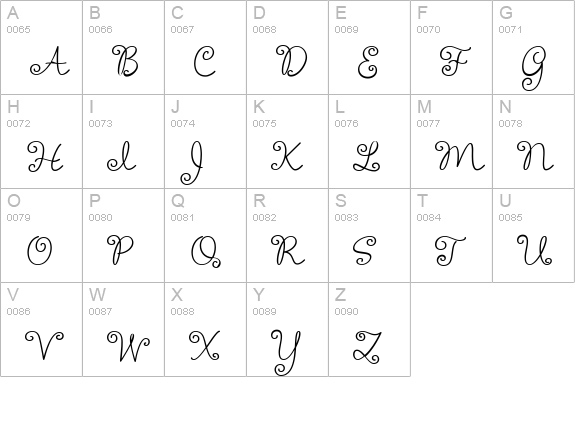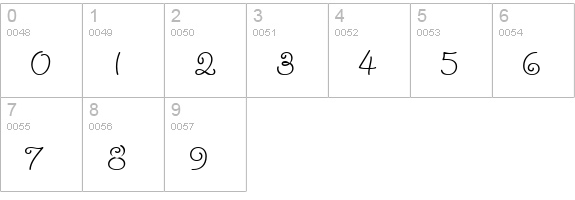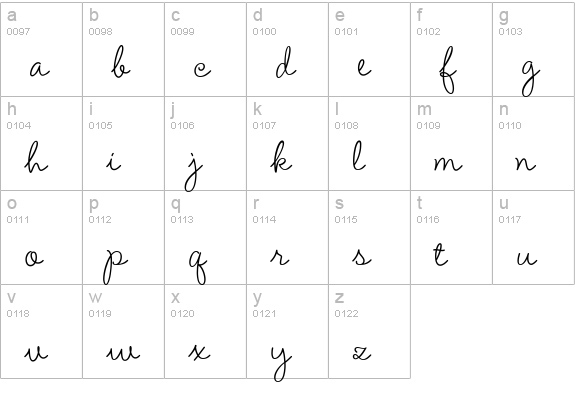
Amelie Font Details
Amelie font is a charming and elegant typeface that exudes a sense of sophistication and creativity. Its graceful lines and unique curves make it a perfect choice for a wide range of design projects, from wedding invitations to branding materials. The versatility of Amelie font allows it to effortlessly adapt to any aesthetic, whether classic or modern. One of the best things about the Amelie font is that it is free to download at FontsMarket.com. This means that designers and creatives can easily access this beautiful typeface without any cost, making it a valuable addition to their font library. With its timeless appeal and seamless legibility, Amelie font is sure to elevate any design and leave a lasting impression on viewers. Get your hands on this exquisite font today and let your creativity soar!